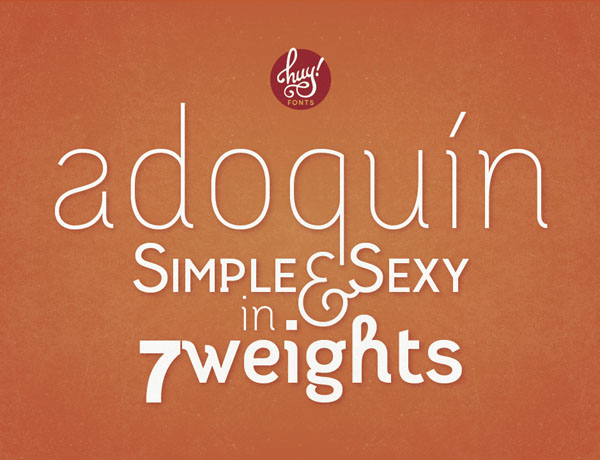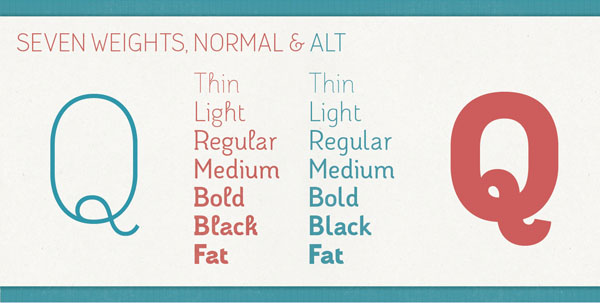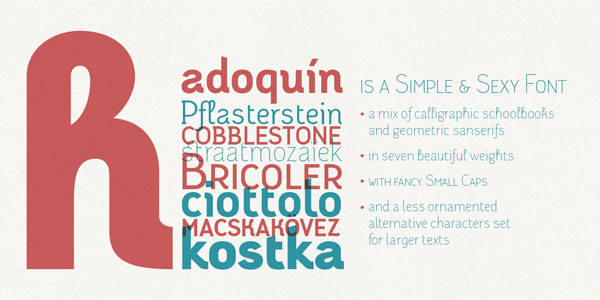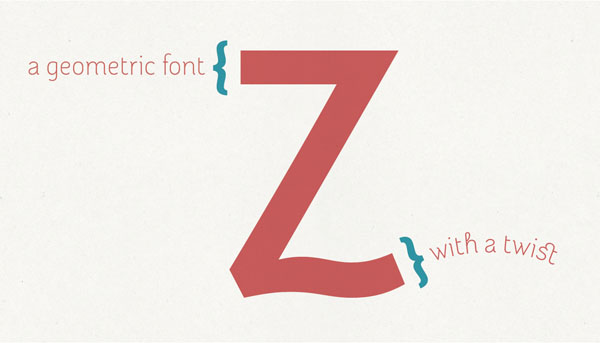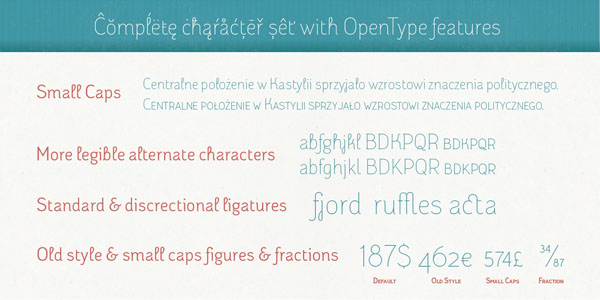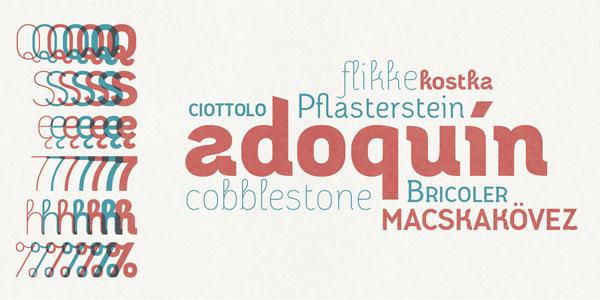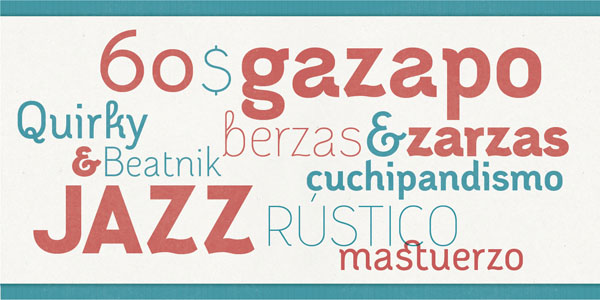
Adoquin – Type Family.
Adoquin is a friendly semi-serif font designed by Juanjo Lopez (Publisher: Huy!Fonts). The type family includes seven weights with small caps. Adoquin’s geometric shape is based on sans serif typefaces with calligraphic features. The typeface looks informal, elegant and playful at the same time. It’s a great font for use in eye-catching headlines, logotypes, book design, packaging and magazines. Adoquin comes with an extended character set for Central and Eastern European languages. Each font includes small caps, old style figures, ligatures, fractions, numerators as well as denominators and alternative characters.